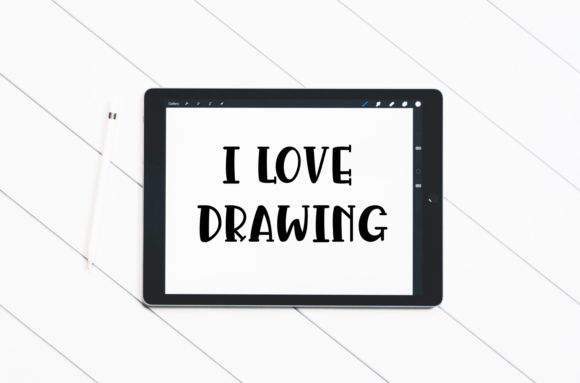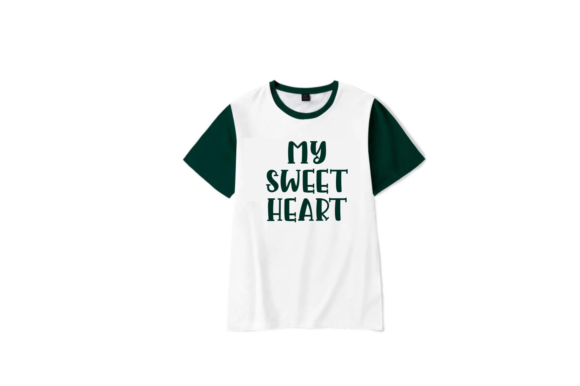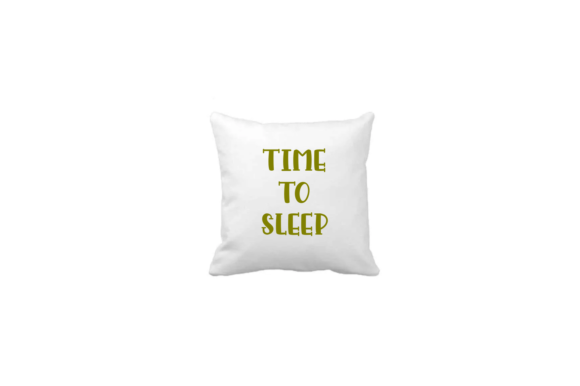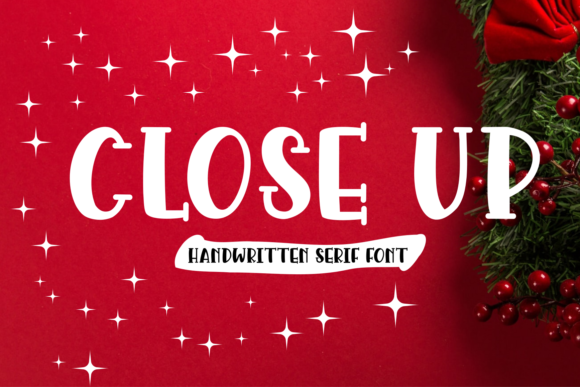
Introduction to Close Up Font
Close up is a cute, friendly and quirky serif font.
This font was particularly crafted for those who need a fun and refreshing look to their designs .
Close Up Font offers exceptional quality and versatility, making it a valuable addition to your design toolkit. Whether you’re creating for personal projects or commercial use, Close Up Font delivers professional results.